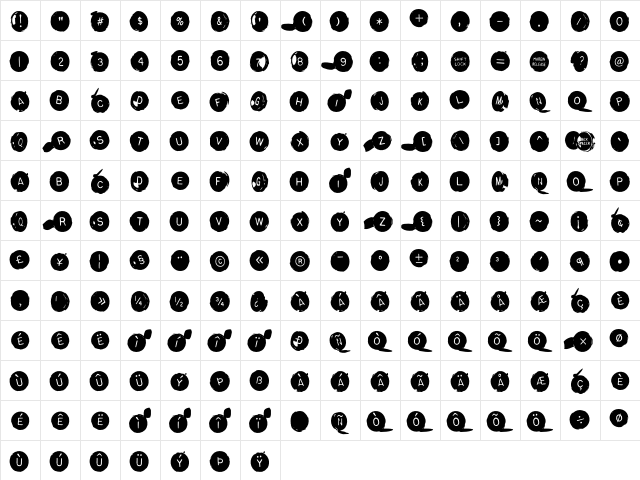
Backspacer Round
Design Context for Backspacer Typeface
Backspacer softens its letterforms with rounded terminals, giving it an approachable, friendly quality that works well in consumer-facing and digital contexts.
A natural fit for tech startups, health and wellness brands, children's products, and friendly consumer apps.
Font Pairing: Pairs well with a rounded or humanist sans for body copy, maintaining the friendly tone without relying on Backspacer to carry extended reading.
Pro Tip: Pair Backspacer with a geometric sans for a balanced system — the rounded softness works as a warm counterpoint to harder-edged companions.